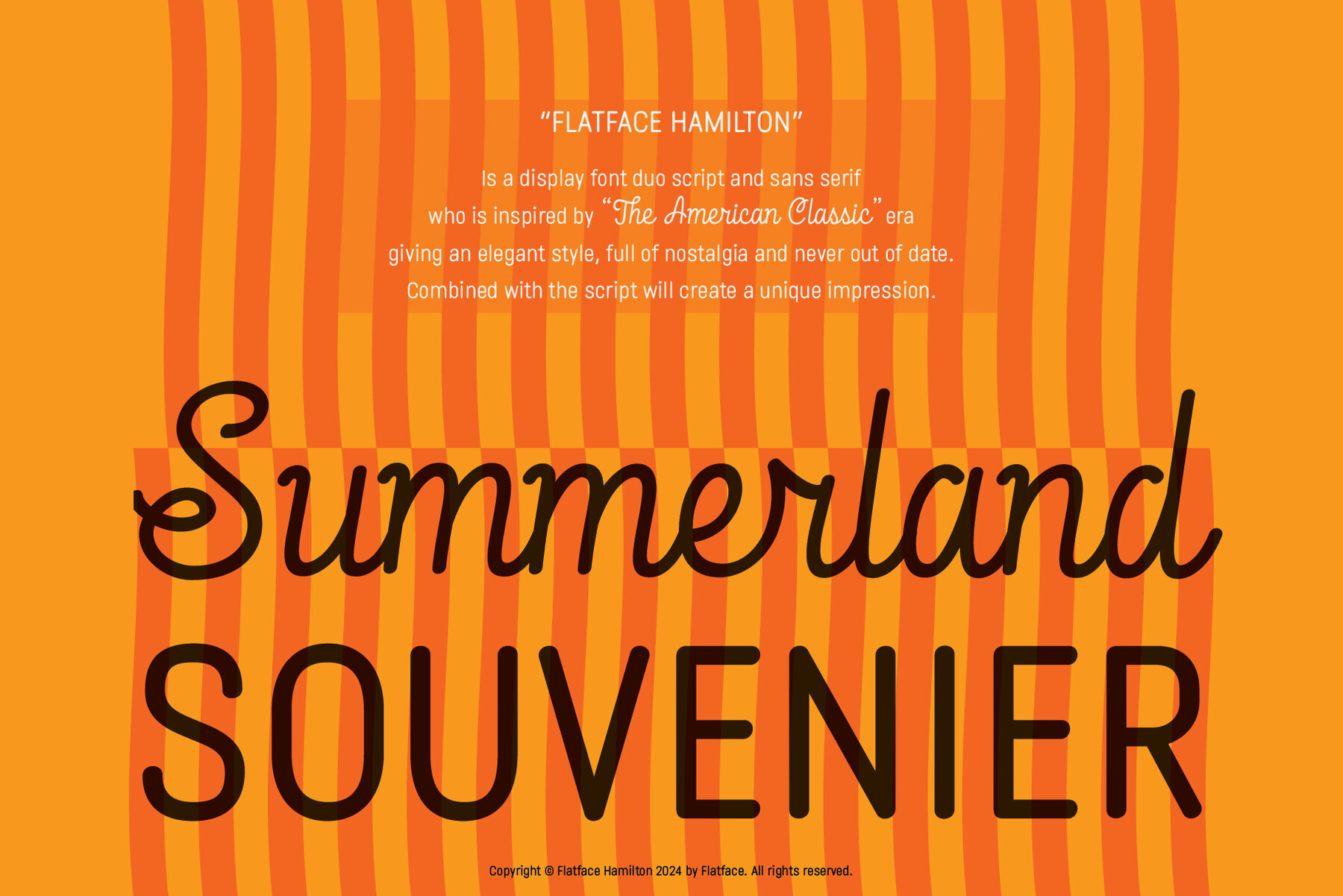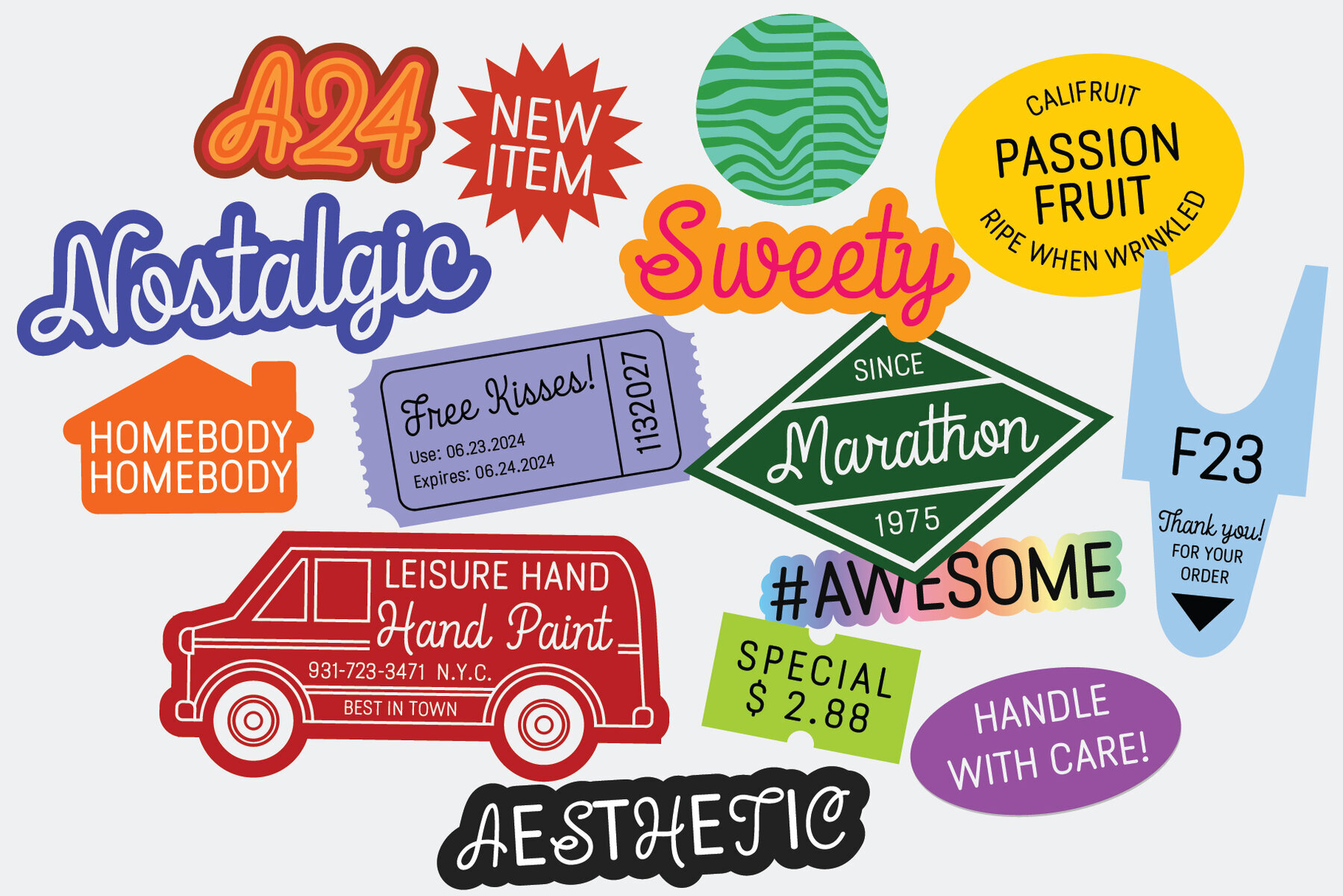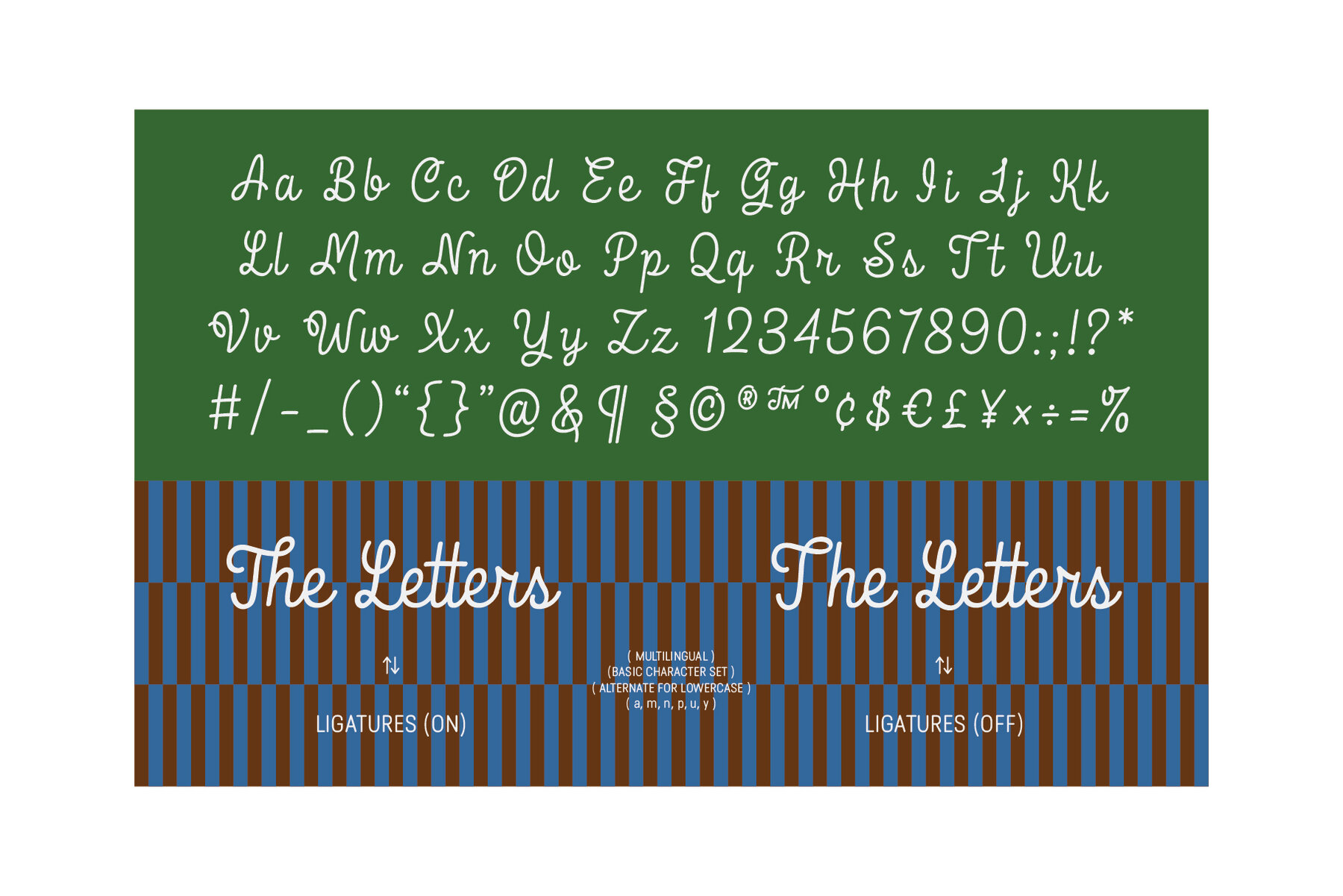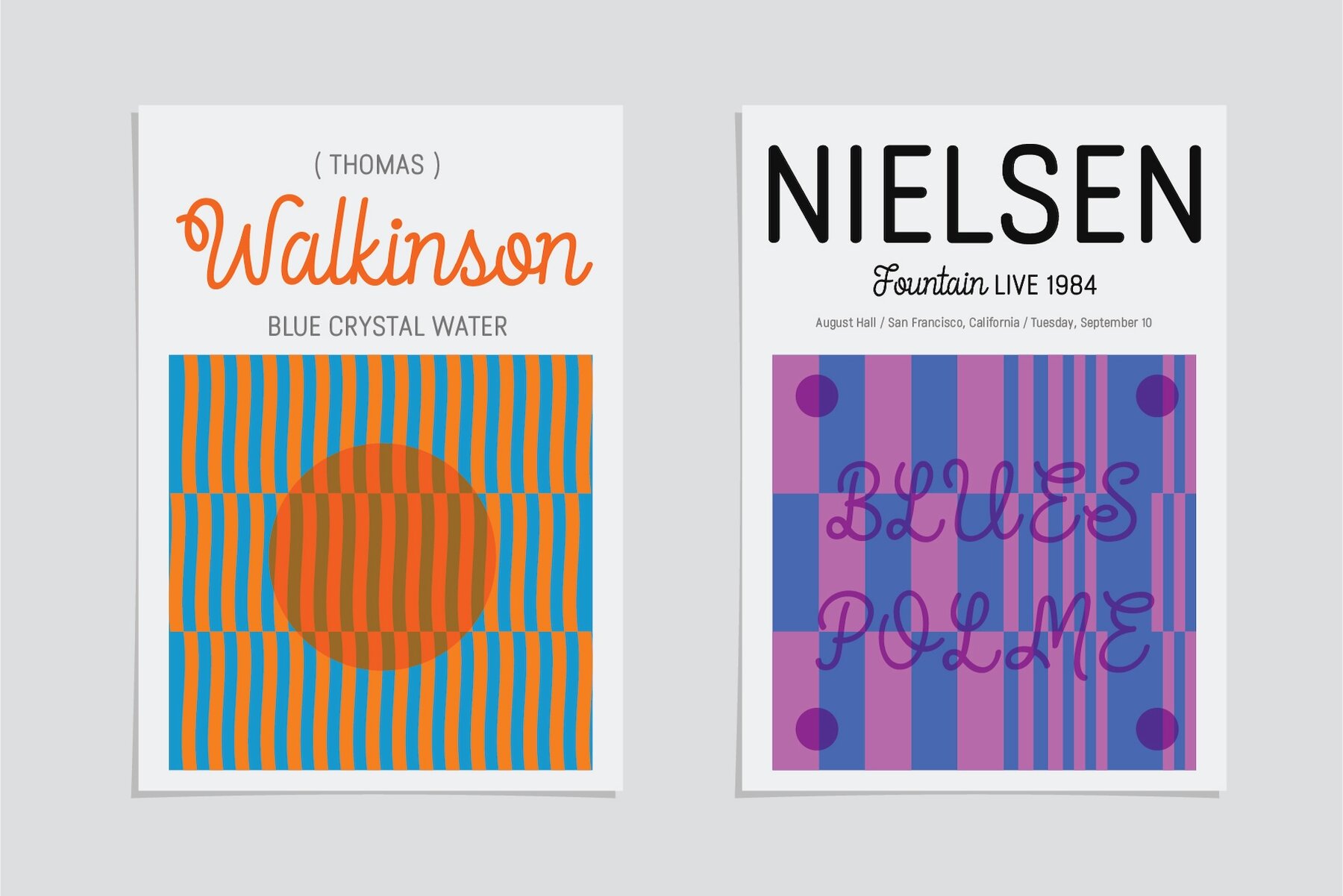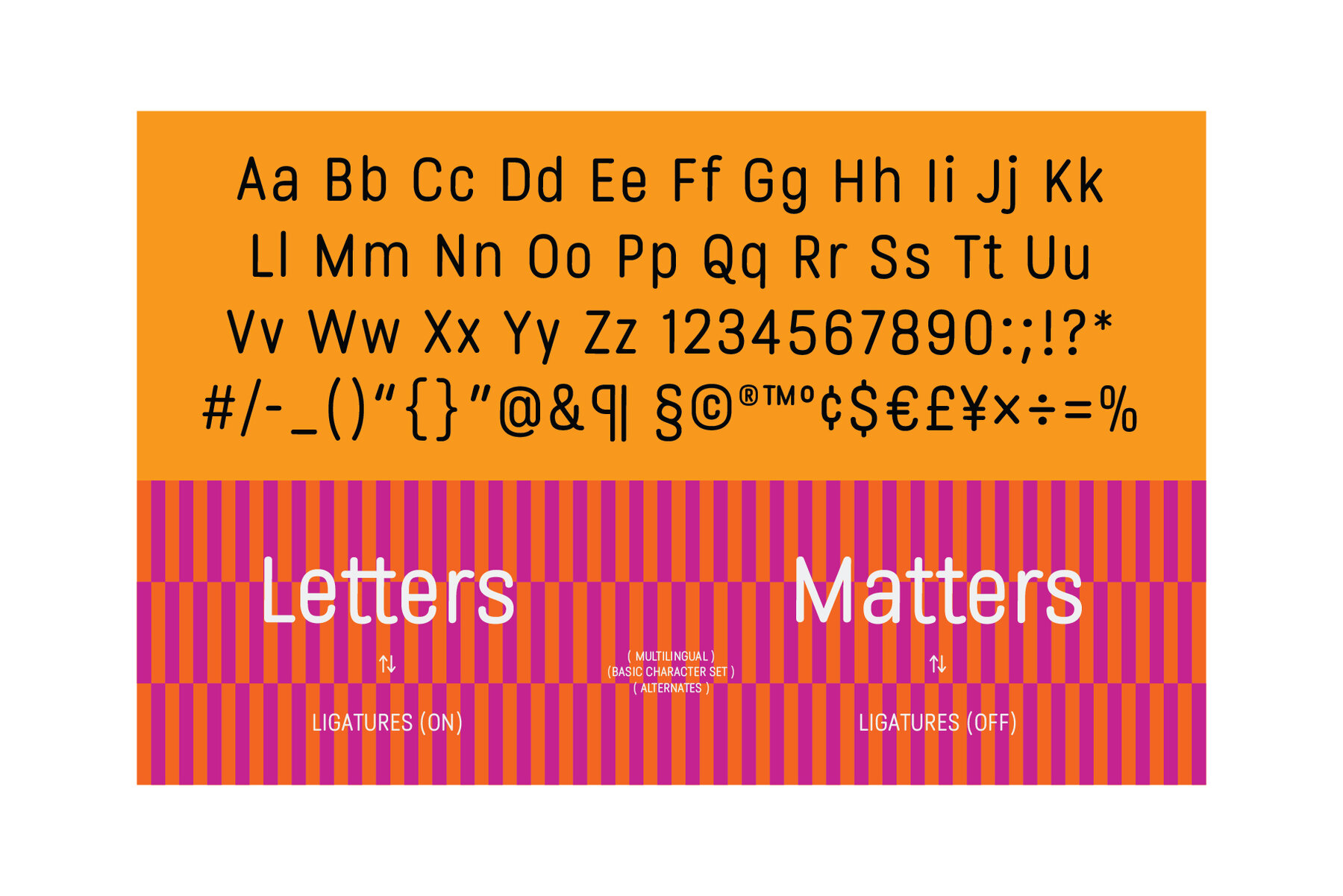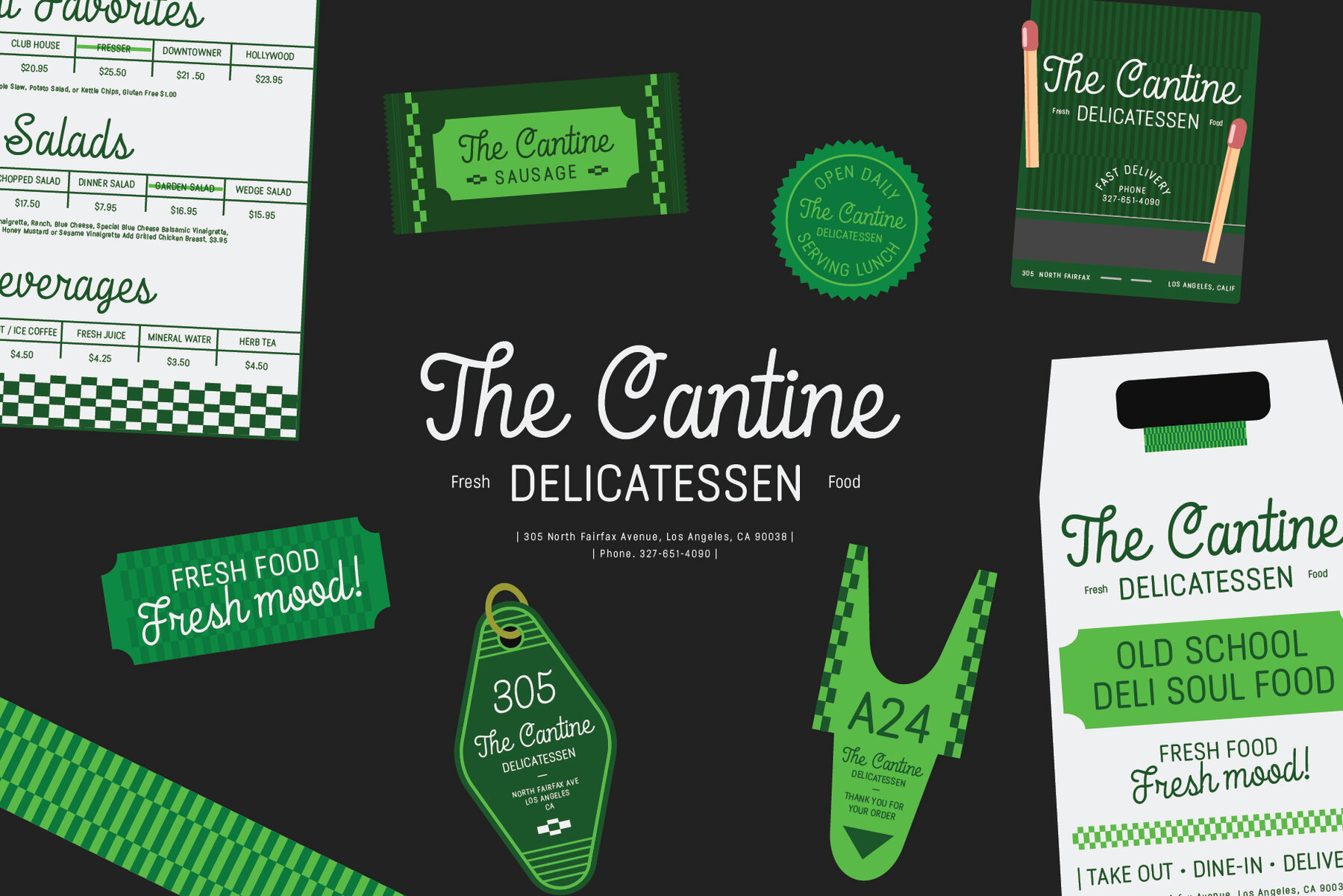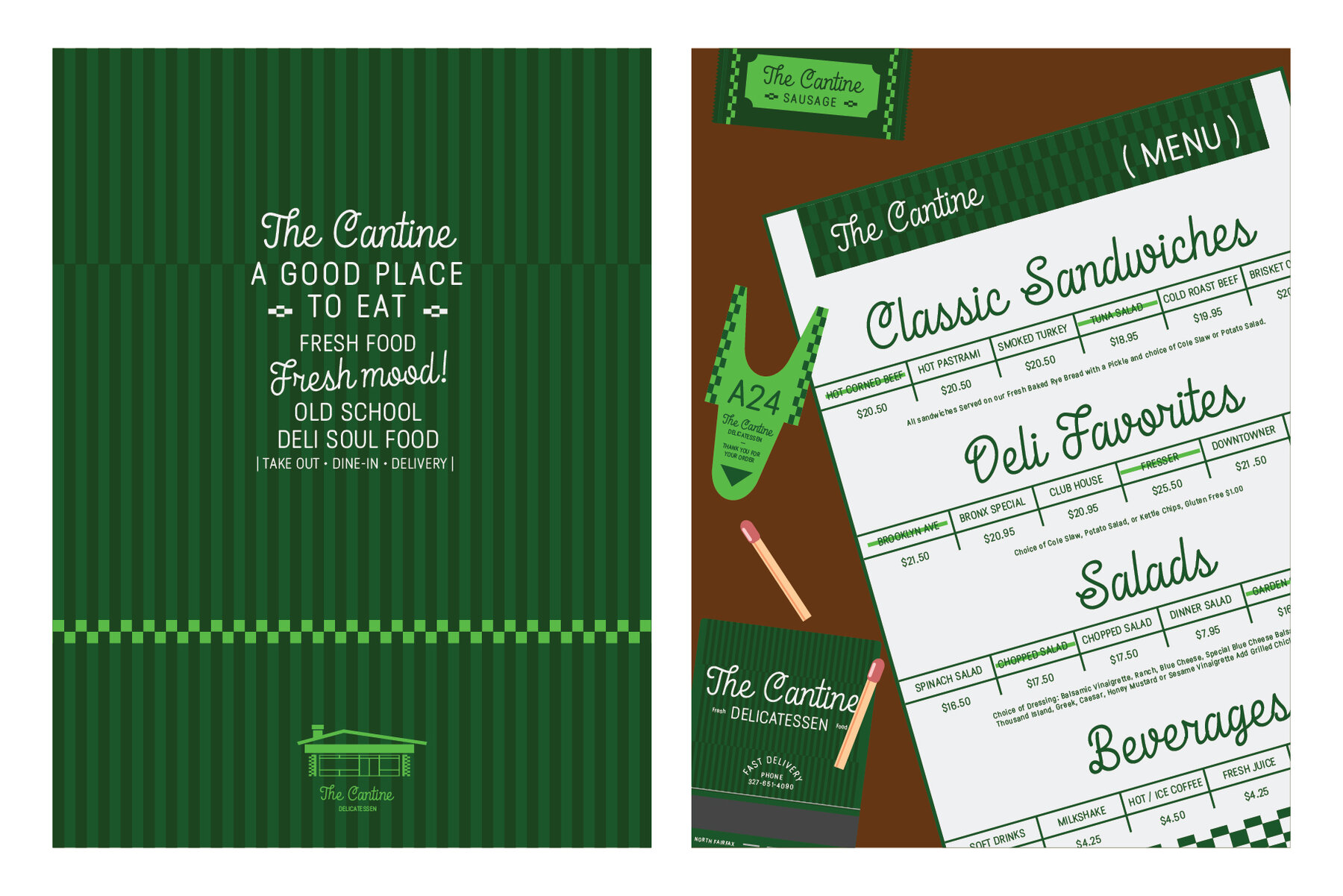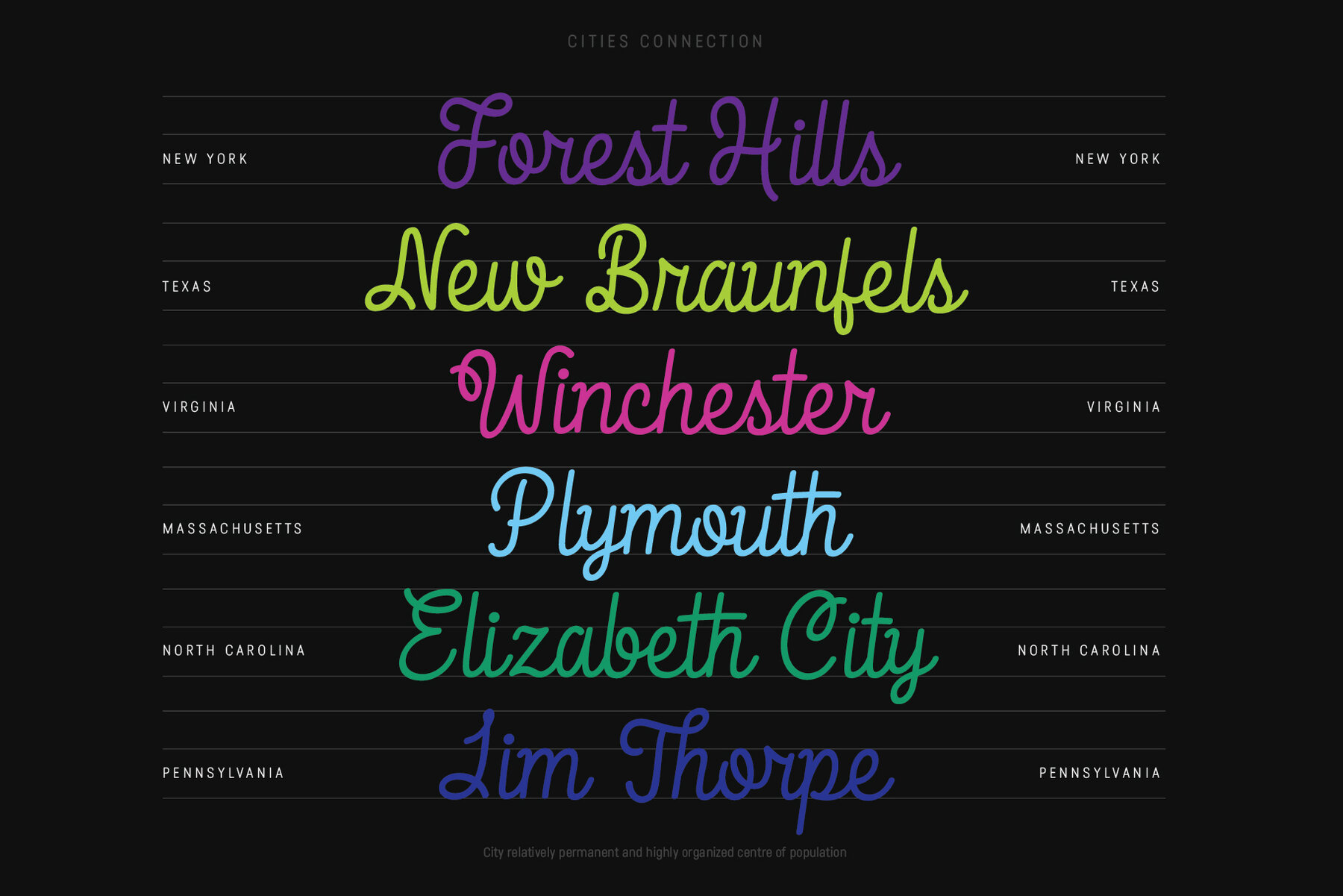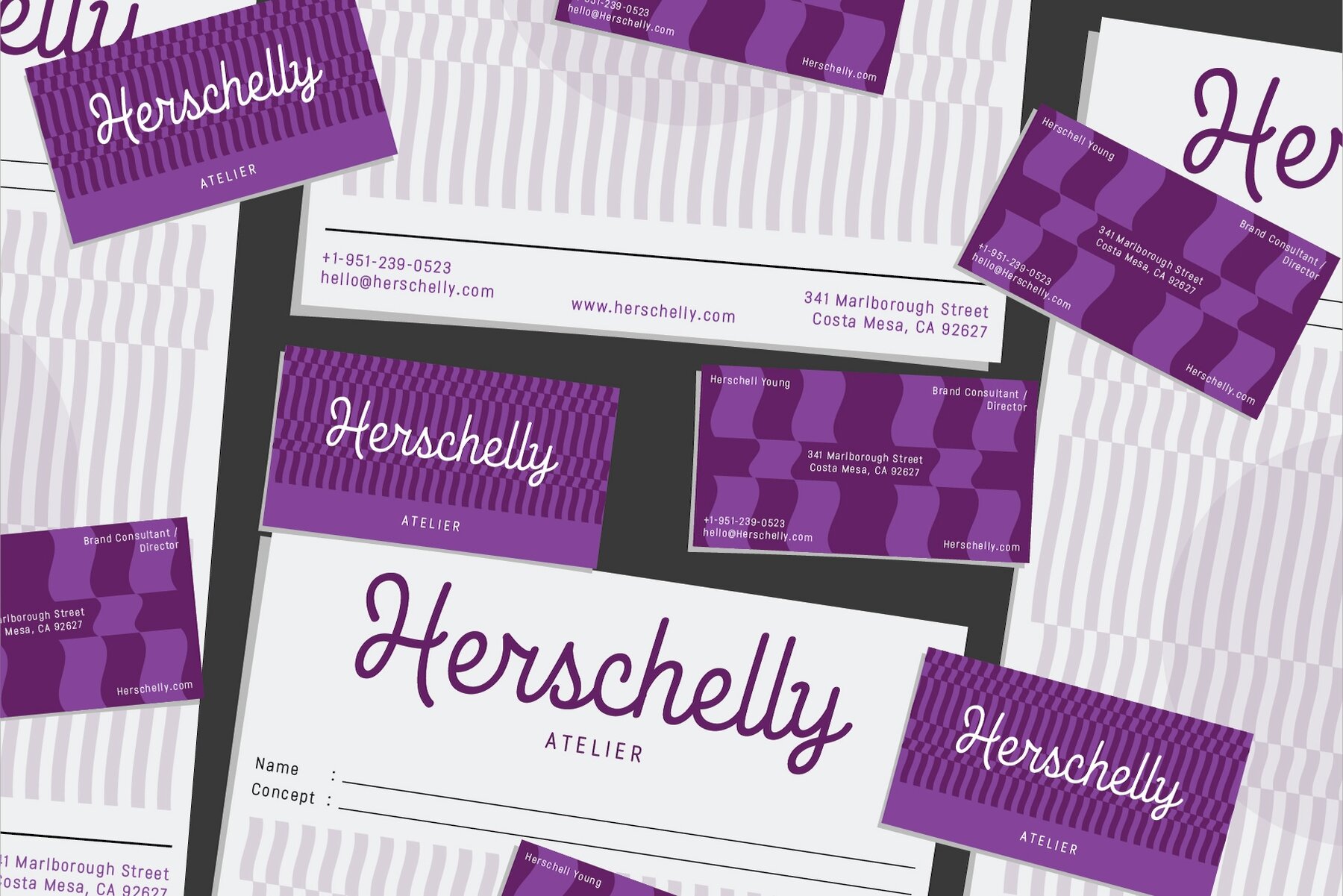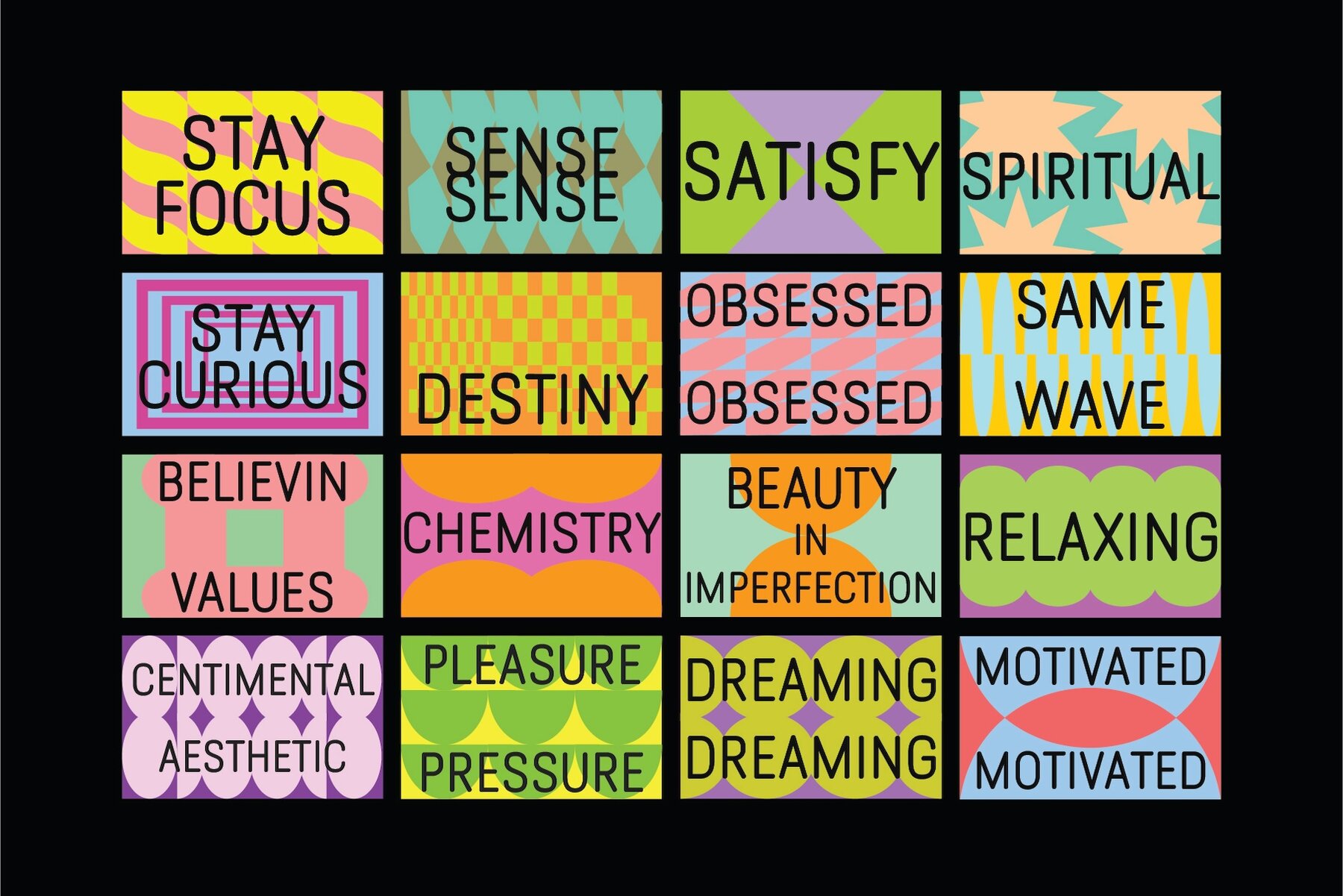
Flatface Hamilton Font
Flatface Hamilton is a dynamic display font duo consisting of both script and sans serif styles. It draws inspiration from the American classic era, exuding an elegant aesthetic combined with a sense of nostalgia—making it timeless in design. The pairing of the script with the sans serif creates a distinctive and memorable impression.
The font is equipped with OpenType features such as ligatures and lowercase alternates, enhancing creativity and versatility. With support for Extended Latin languages, Flatface Hamilton is ideal for various creative projects. Whether you're working on a logotype, printed quotes, invitations, cards, product packaging, headers, letterheads, apparel designs, web design, magazines, or books, this font duo provides a playful and professional touch to your work.
Incorporate Flatface Hamilton into your designs to add character and style, ensuring each project stands out with ease.